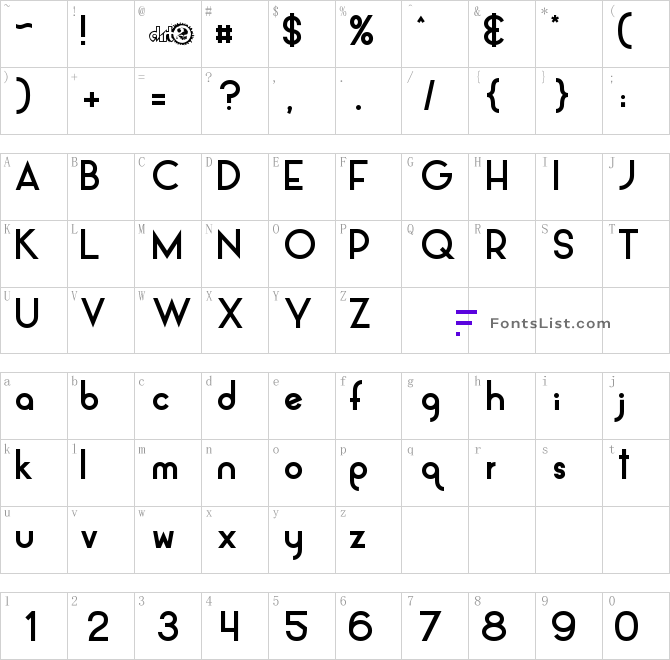
- Font Name:Alpaca Scarlett Demo
Alpaca-Scarlett-Demo.ttf is a very beautiful artistic font, Alpaca-Scarlett-Demo.ttf is widely used in the design and printing of various books and pictures,Alpaca-Scarlett-Demo.ttf has a strong visual impact,Alpaca-Scarlett-Demo.ttf is a commonly used font in newspapers, magazines and books, and is used in posters, e-commerce Poster design, store design, logo design, font design and other fields.Alpaca-Scarlett-Demo.